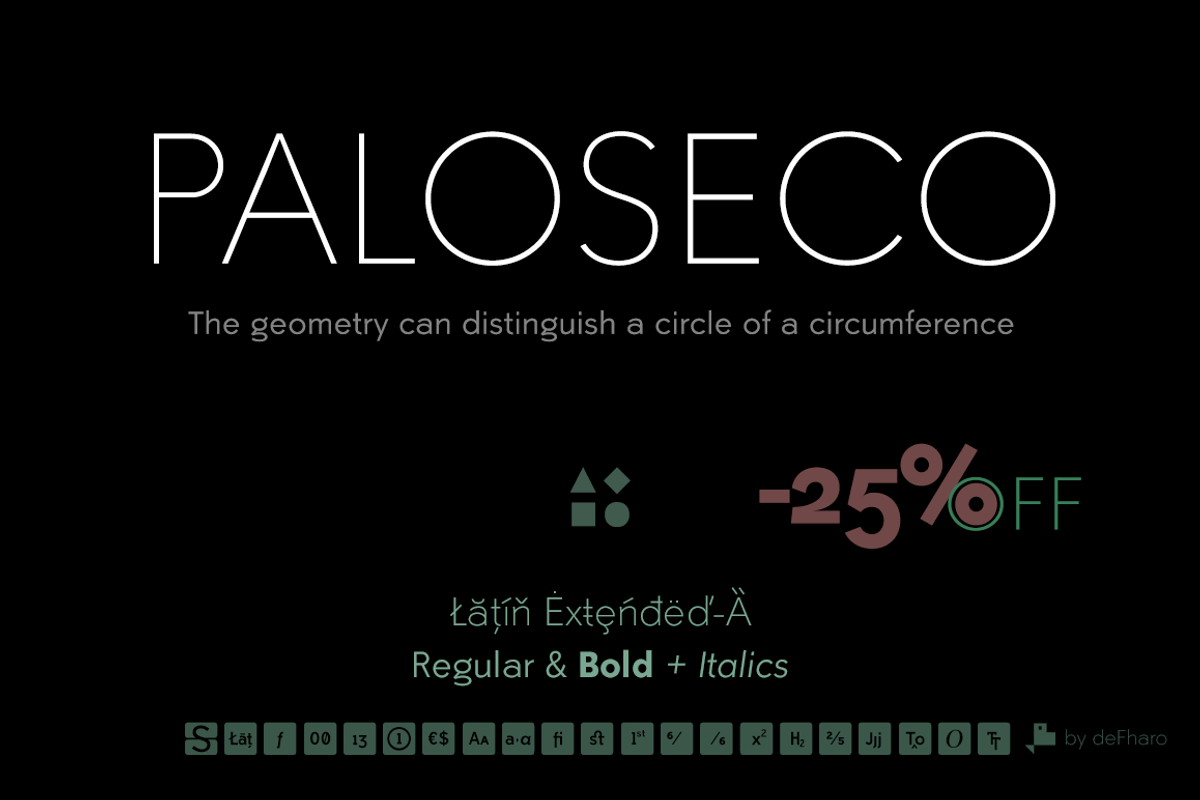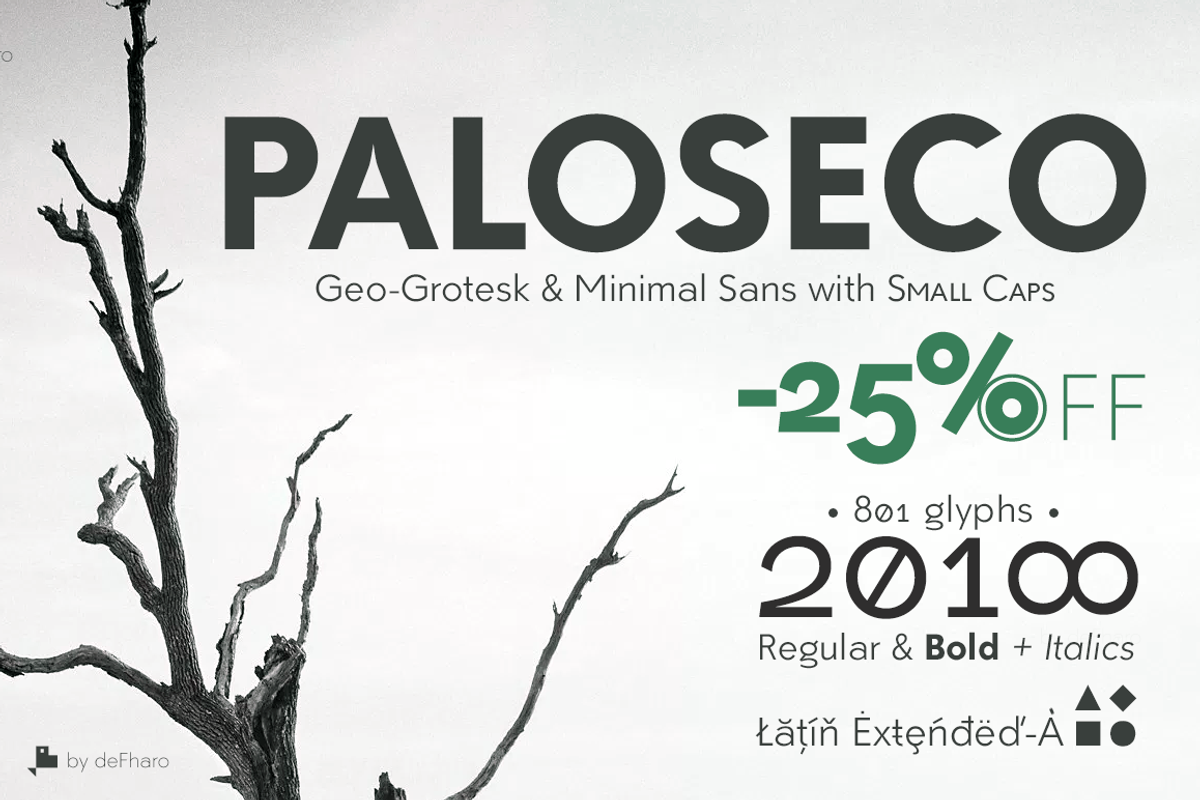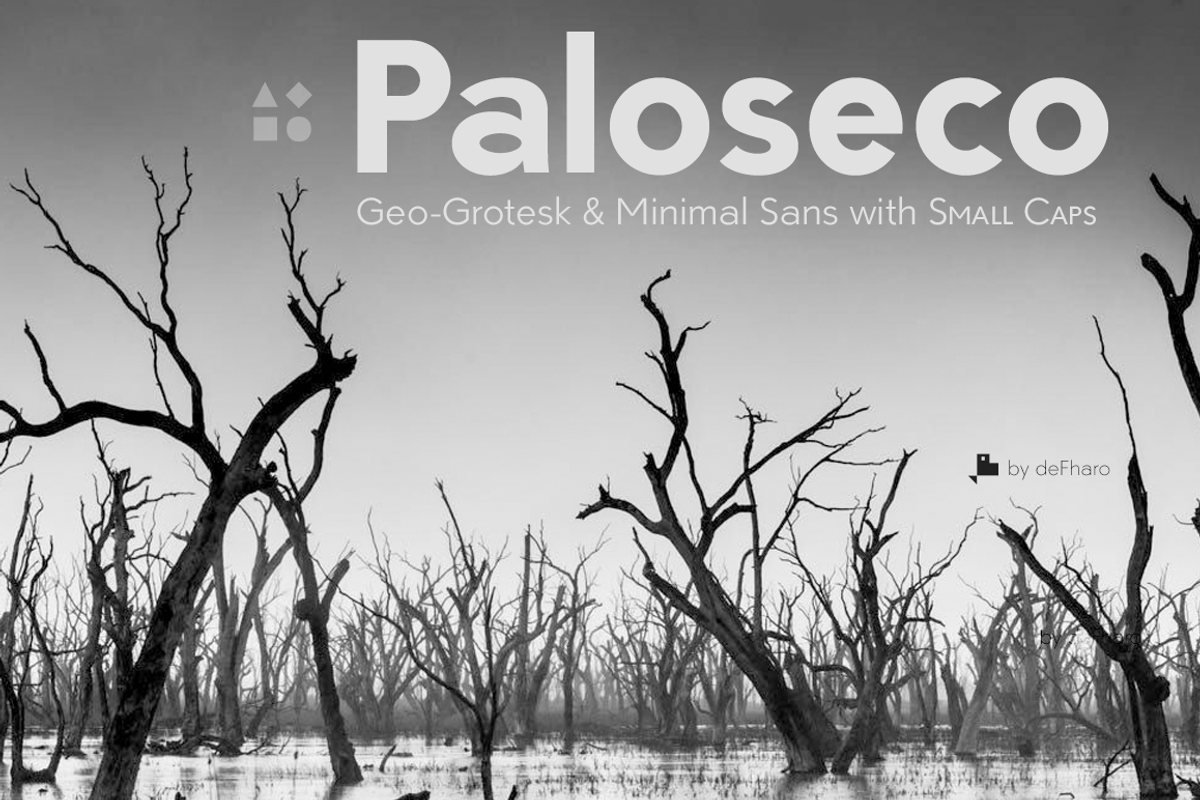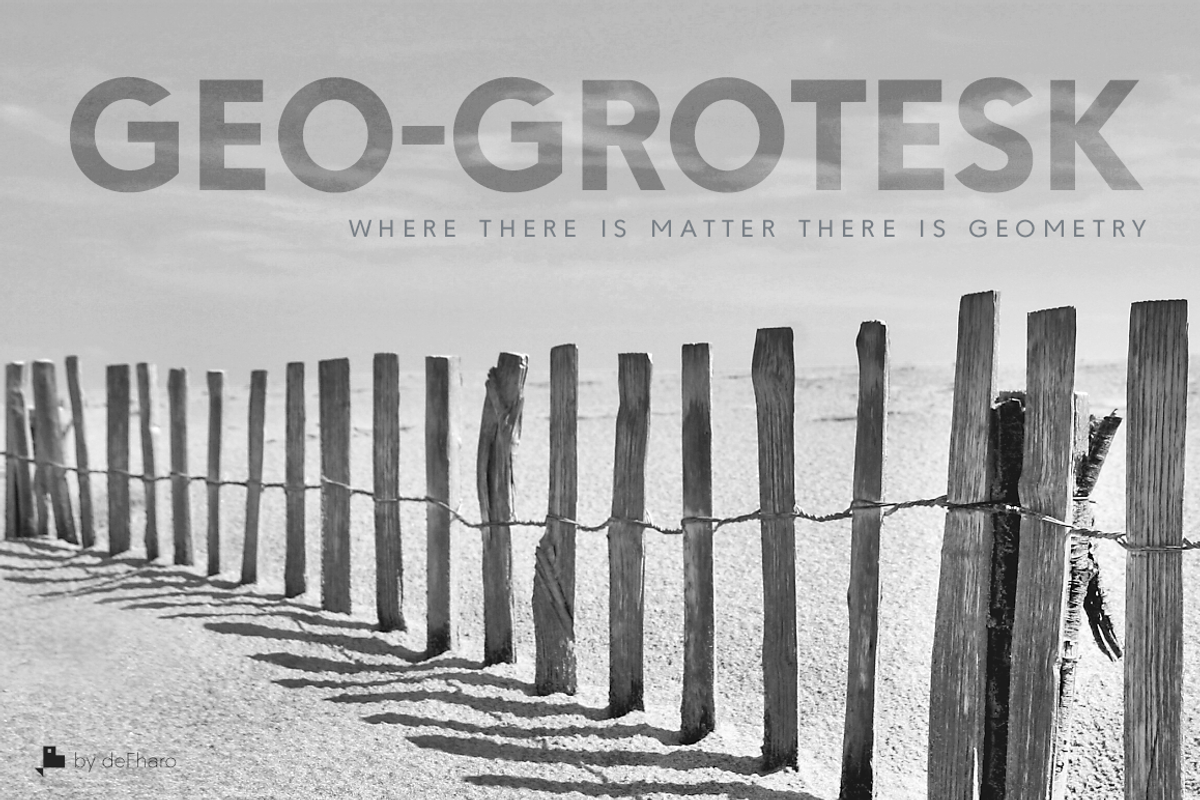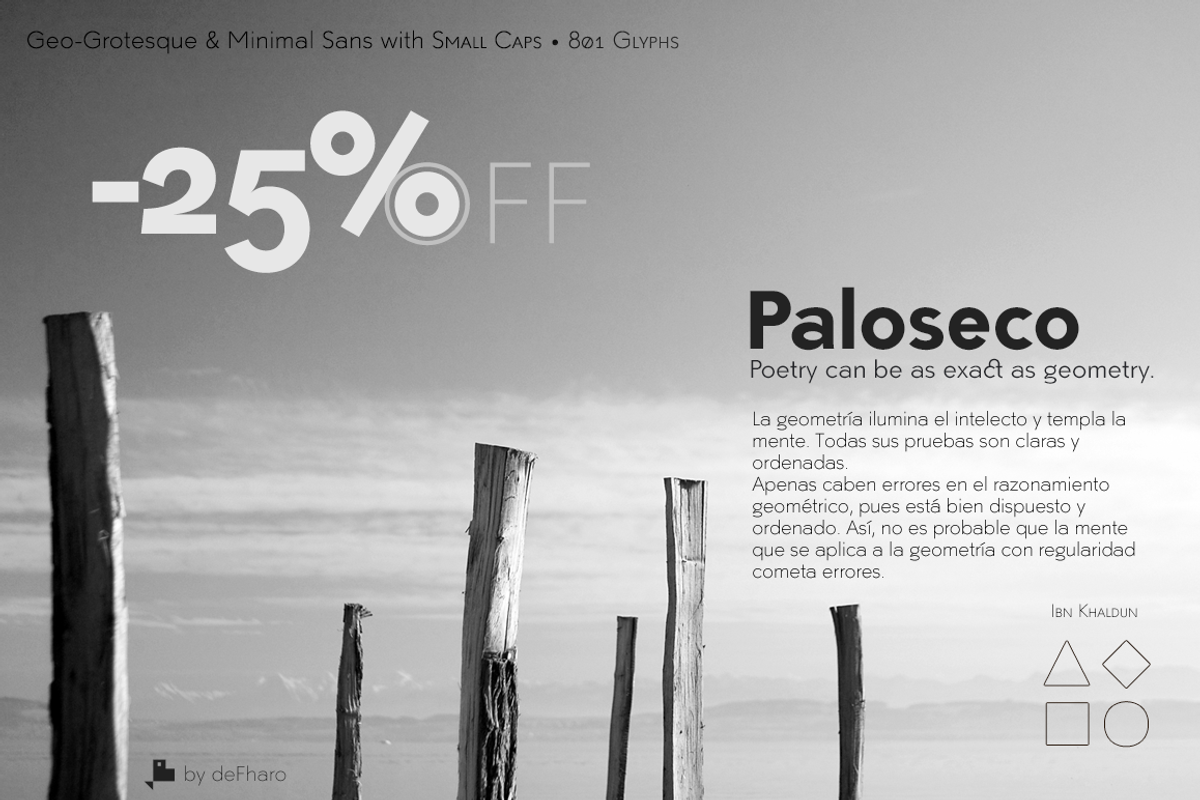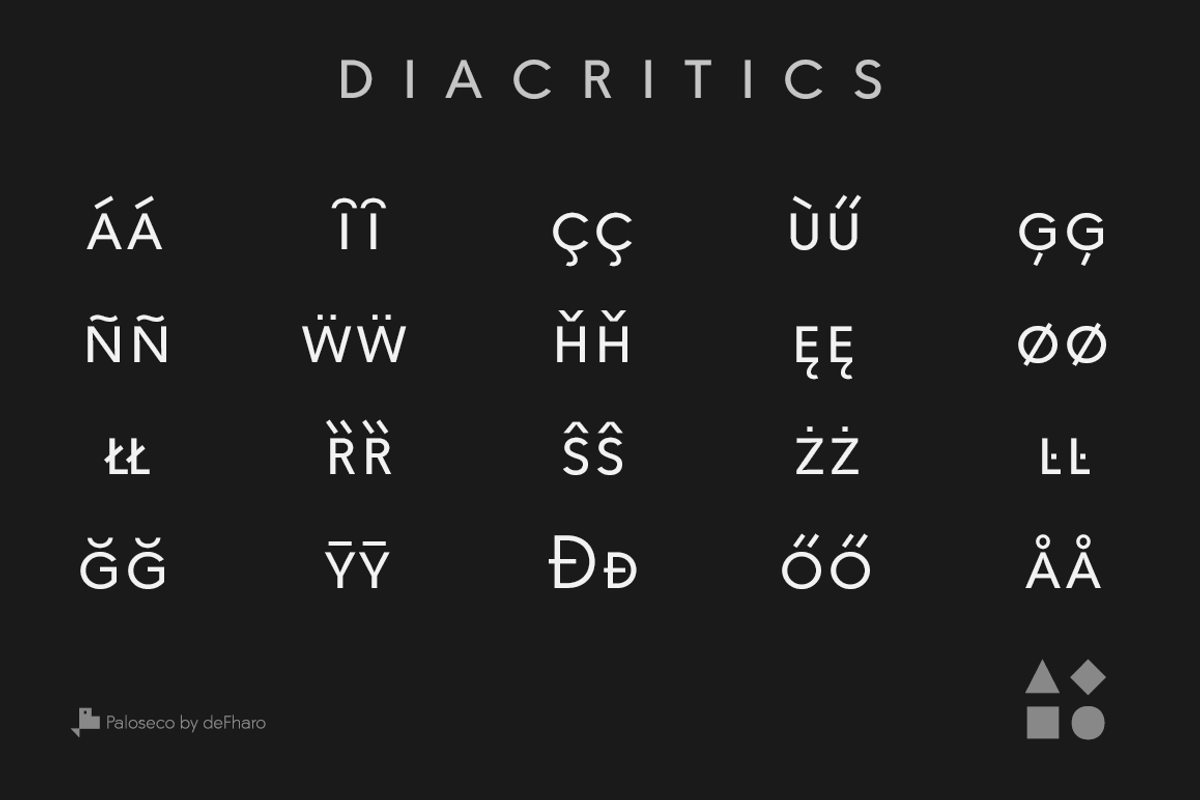
Paloseco is a Sans Serif typographic family of Geo-Grotesque style with 6 pesos plus the italic versions all include small capital letters the symbol of Bitcoin (b #) and other cryptocurrency symbols.
It is a geometric typography, minimalist, with neo-grotesque modulations. The typeface has alternative letters and numbers, small caps and advanced OpenType functions. The Italic versions have some of their own characters (&, @, a, g, y), these versions have many optical corrections to balance the deformations created in many curves by the mere inclination of the letters, which in the case of This typography is 9 °.
The drawn of the vectors is careful to obtain smooth curves and elegant appearance, the thicker versions have ink traps in the joints of the joints to use in small sizes. The Metric and the Kerning of all the versions I have reviewed individually to obtain maximum readability in any type of text and size.
Paloseco includes the symbol of Bitcoin and currency symbols.
OpenType Features: Subscript, Superior letters, Superiors, Superscript, Numerators, All Alternates, Small Capitals From Capitals, Capital Spacing, Additional languages, Alternate Annotation Forms, Denominators, Discretionary Ligatures, Bitcoin, Standard Ligatures, Extended Fractions, Small Capitals, Slashed Zero, Fractions, Historical Forms, Historical Ligatures, Inferiors, Kerning, Localized Forms, Oldstyle Figures, Ordinals, Scientific Inferiors.